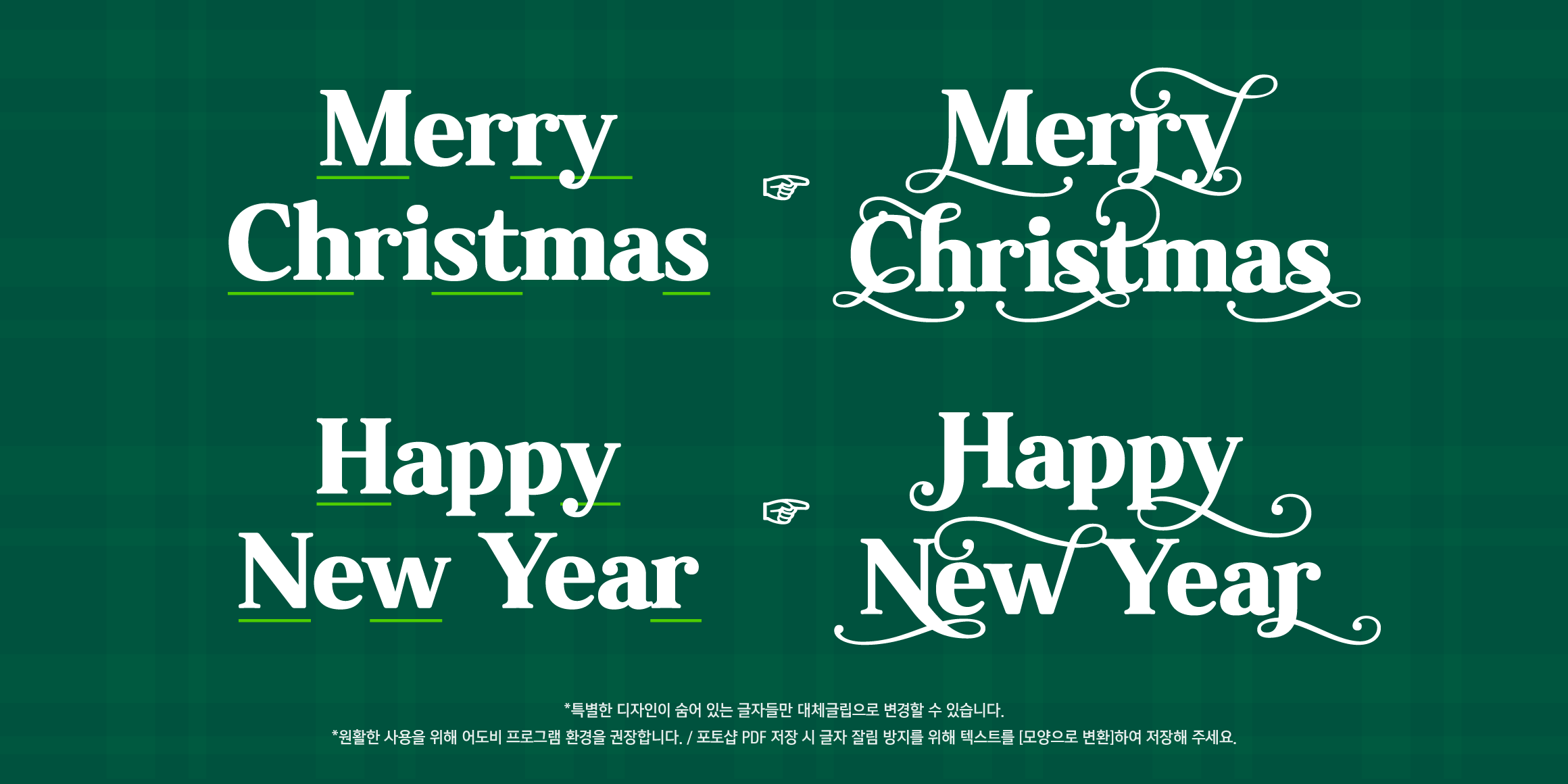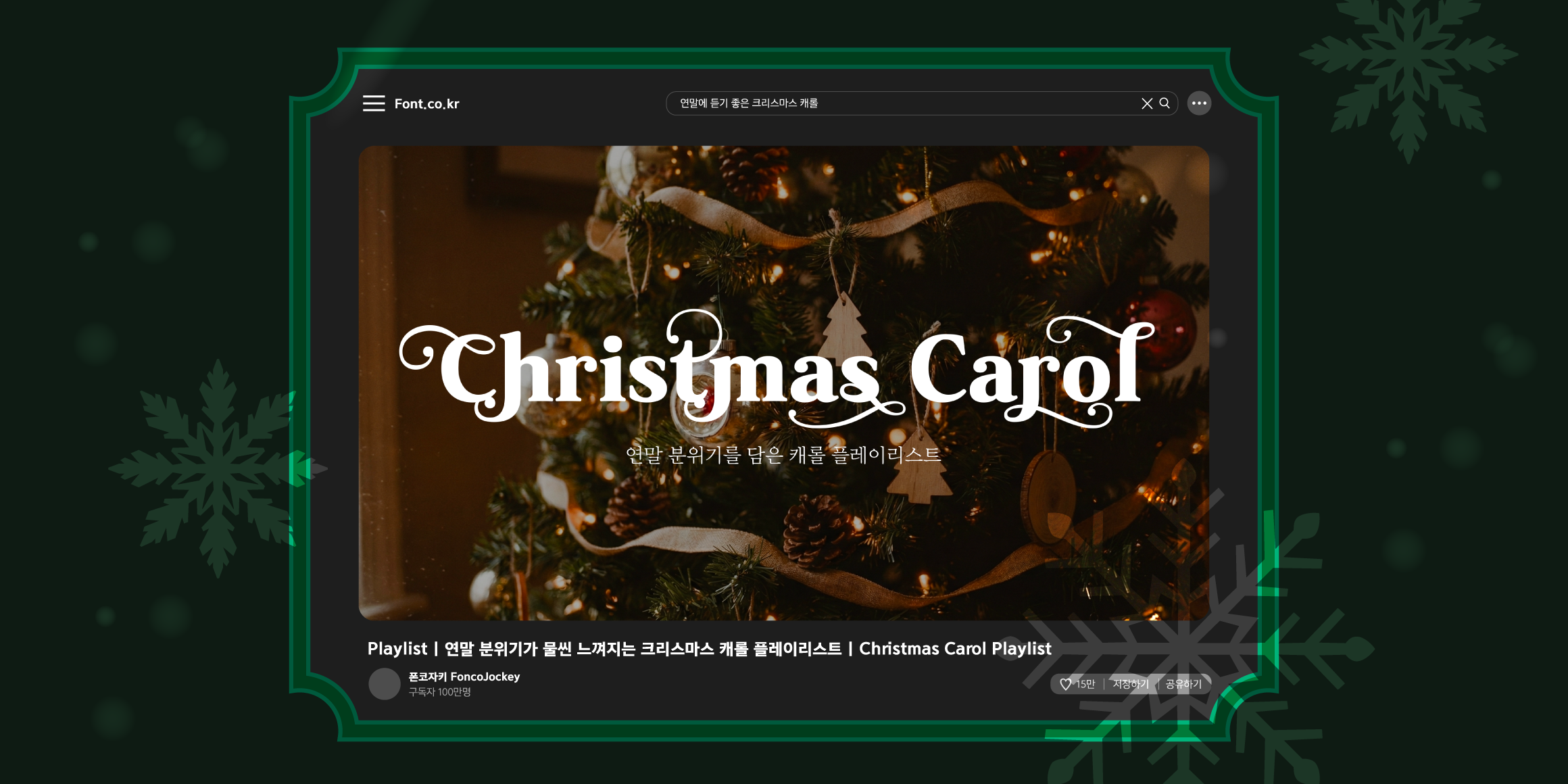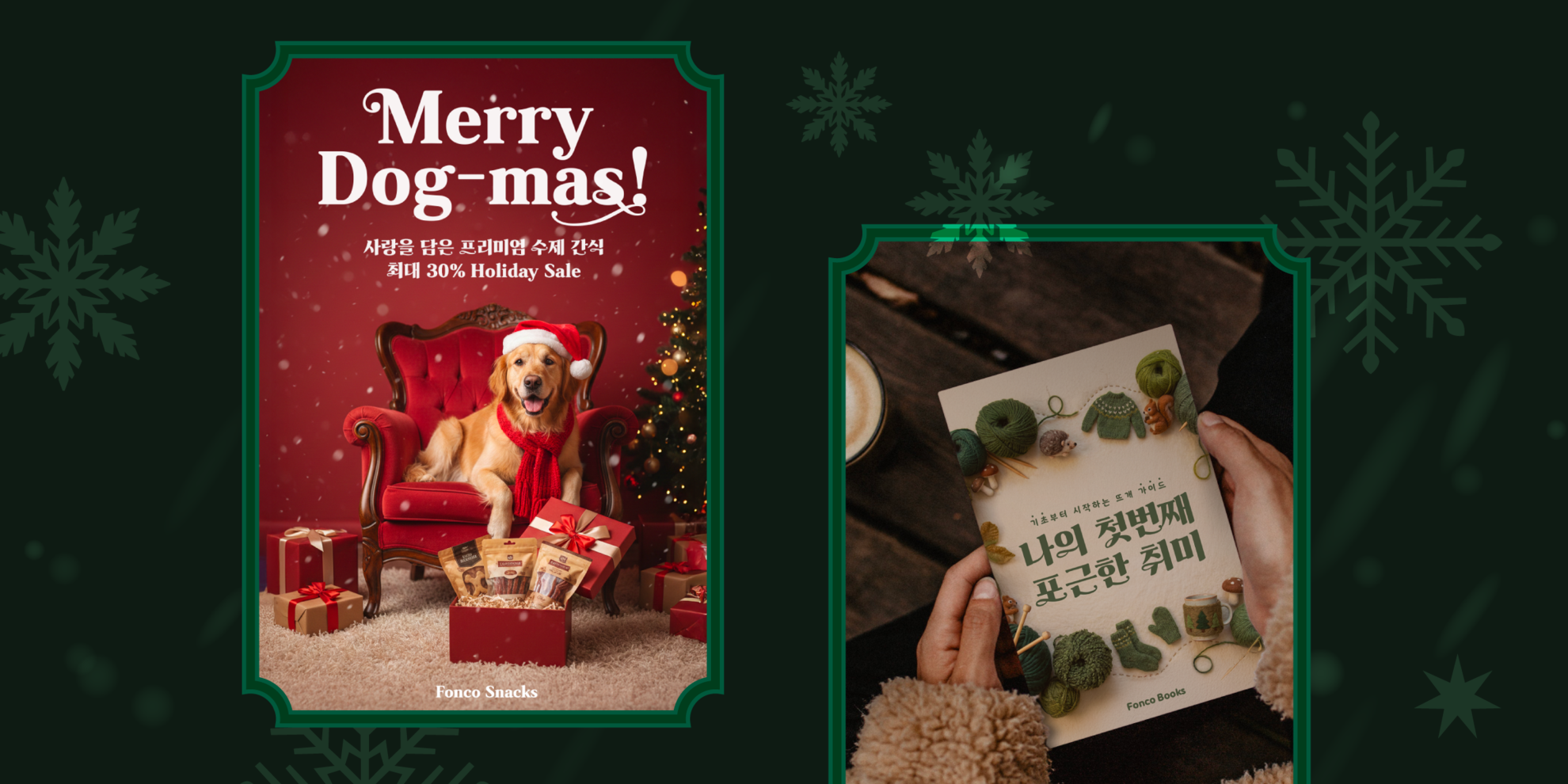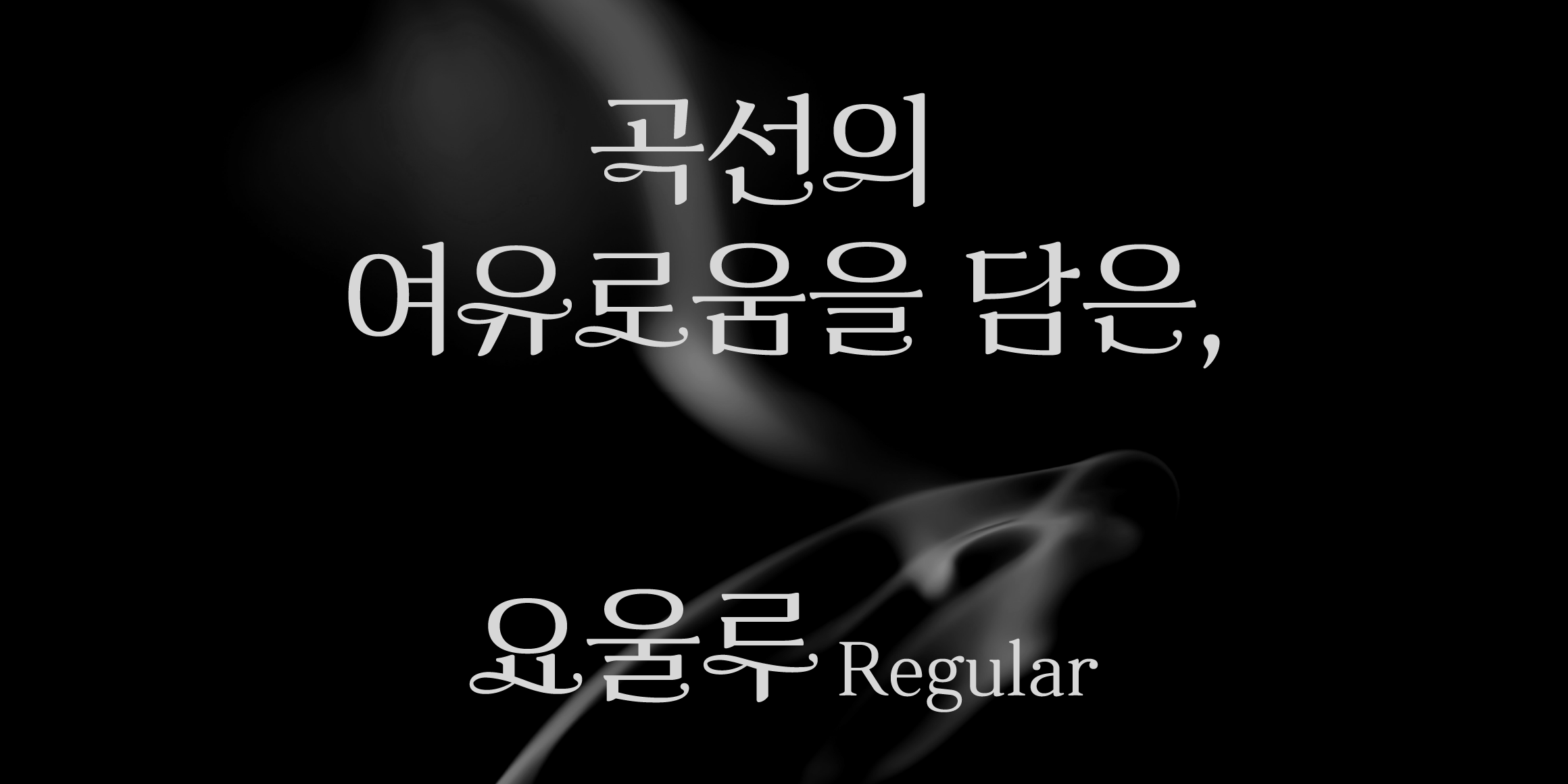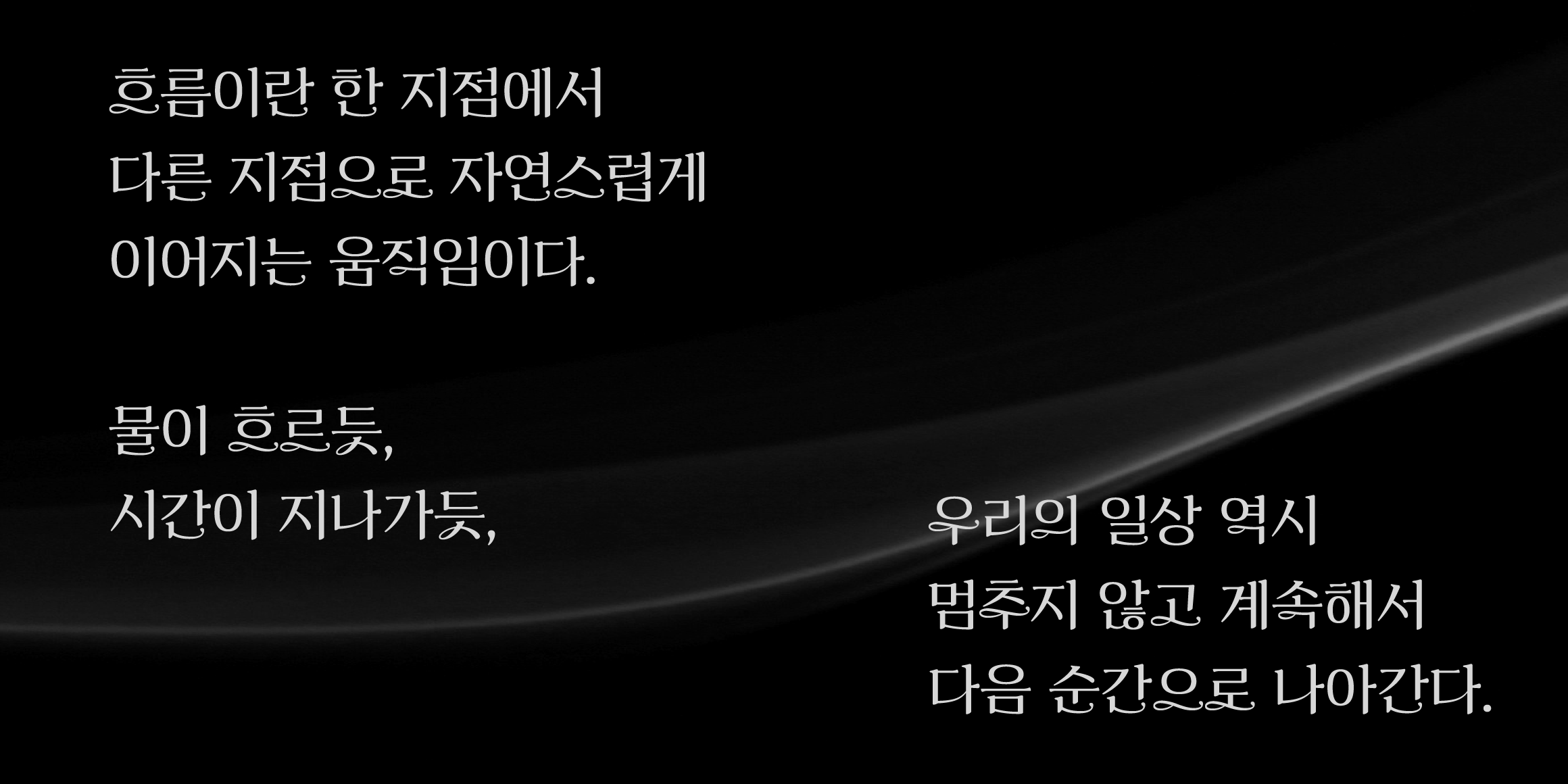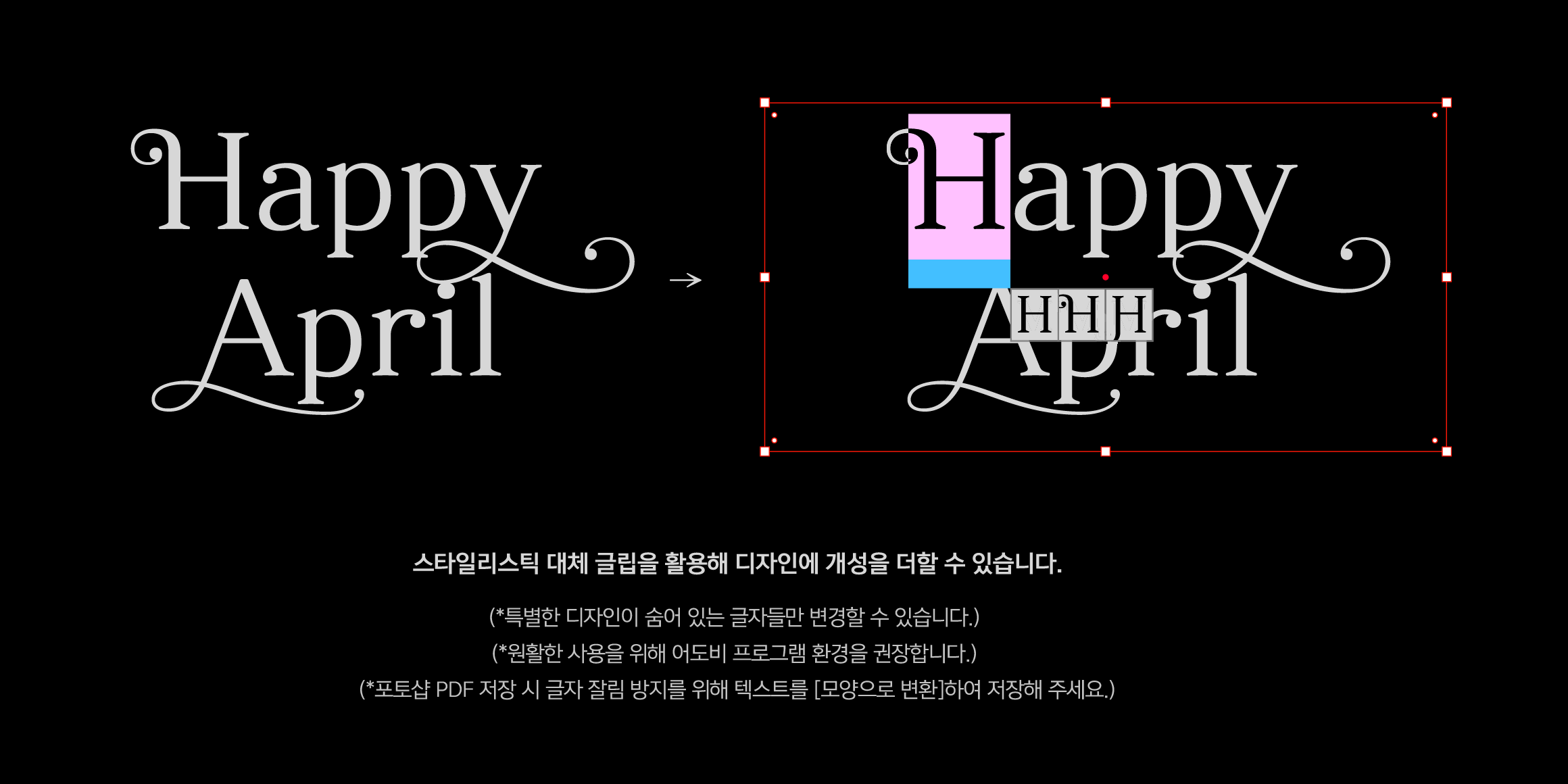
Yoon Joulu
The Finnish word for Christmas, “joulu,” is a typeface that captures the thrill of winter scenery in its letters. Like the round ornaments decorating trees and the sparkling lights wrapping around streets, the graceful curved decorations at each stroke end are joulu's most distinctive design feature. This design creates a dazzling, vibrant atmosphere, as if the screen is filled with sparkling lights. Feel free to use it anytime you need to celebrate, even beyond Christmas. Its cheerful letters will help convey your joyful spirit even more brightly!